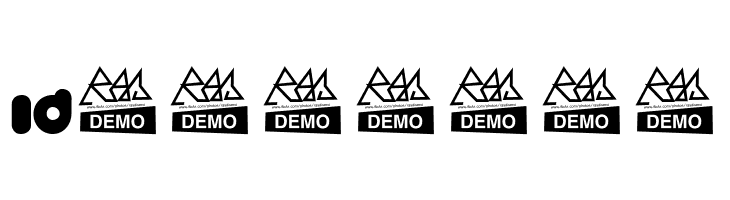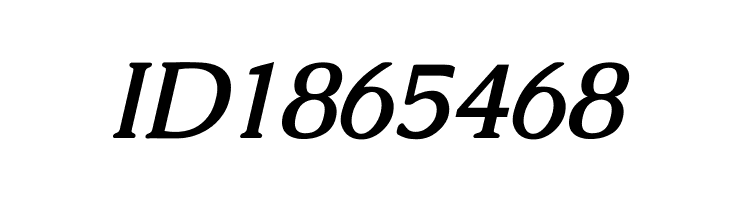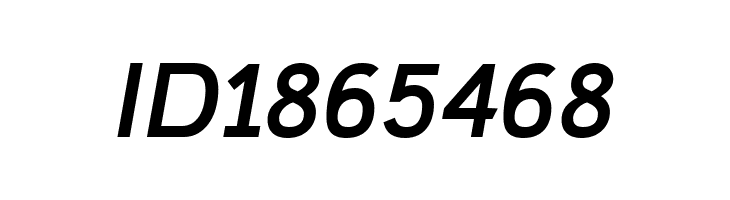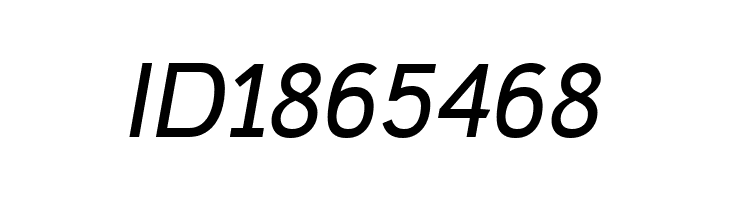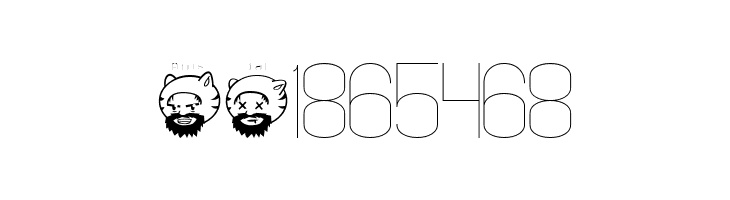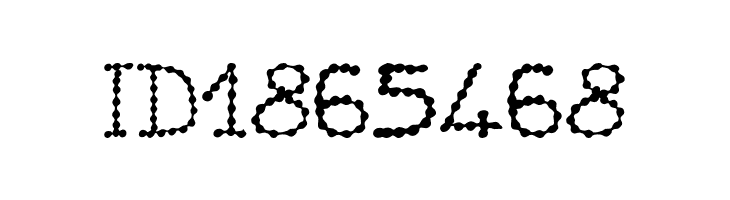
A modern, bold, and italicized typeface with consistent stroke thickness.
A sleek, modern italic font with smooth curves and clear readability.
A bold, playful font with rounded edges and a bubbly appearance.
A playful, dotted font with a unique, decorative style.
A sleek, modern font with thin, elongated letterforms and a minimalist aesthetic.
A sleek, modern font with thin, elongated letterforms and a minimalist design.
A classic serif font with elegant strokes and medium contrast.
A bold, classic serif font with strong strokes and traditional serifs.
A bold, italic serif font with a classic and elegant style.